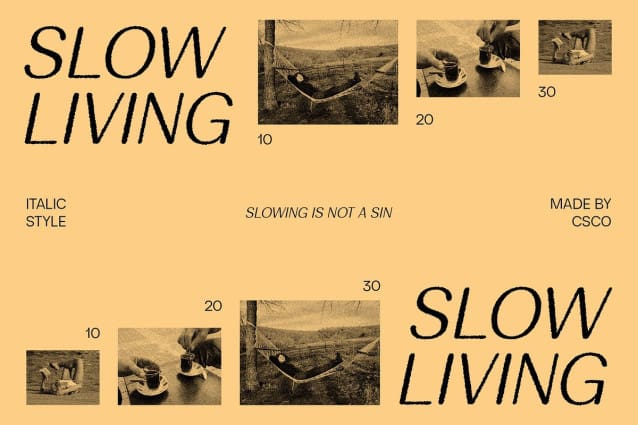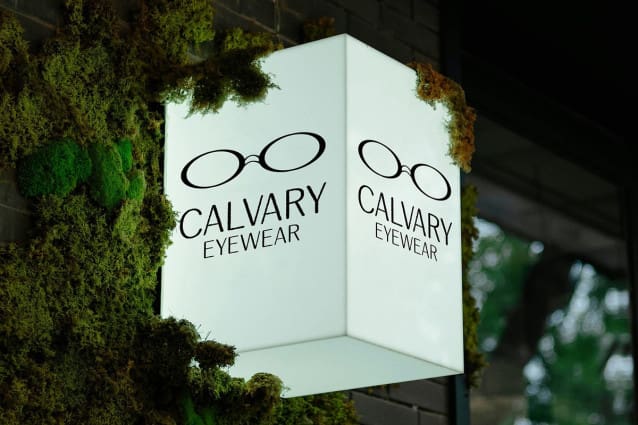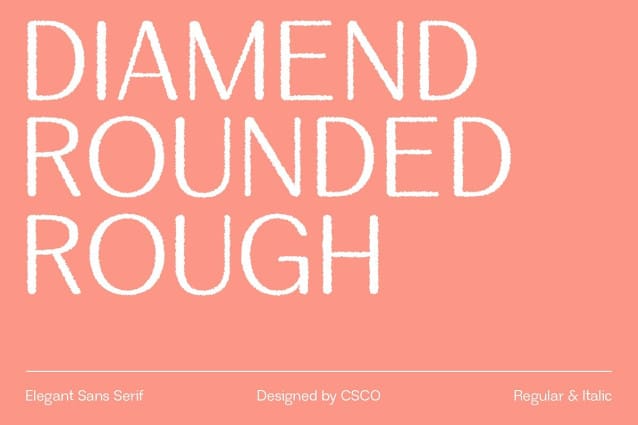
Diamend Rounded Rough Font
Diamend Rounded Rough is a modern sans-serif font featuring rounded, sleek, and minimalist forms that convey elegance and sophistication. Its smooth, clean lines are complemented by rounded edges, which soften the overall appearance and add a friendly touch.
Distinctive Rough Texture The font’s rough texture introduces a unique, tactile detail that enhances its visual appeal. This distinctive element adds a rugged charm to the sleek, contemporary design, creating a striking contrast between refinement and texture.
Ideal for High-End Branding and Stylish Projects This rounded rough font is perfect for high-end branding and stylish design projects. Its combination of modern clarity and textured detail makes it versatile for upscale applications, from luxury branding to chic editorial layouts.
Elevate Your Design Add sophisticated yet rugged flair to your projects with this rounded rough font. Its blend of elegant, rounded forms and distinctive rough texture offers a refined and engaging visual experience, making it an excellent choice for contemporary and stylish designs.